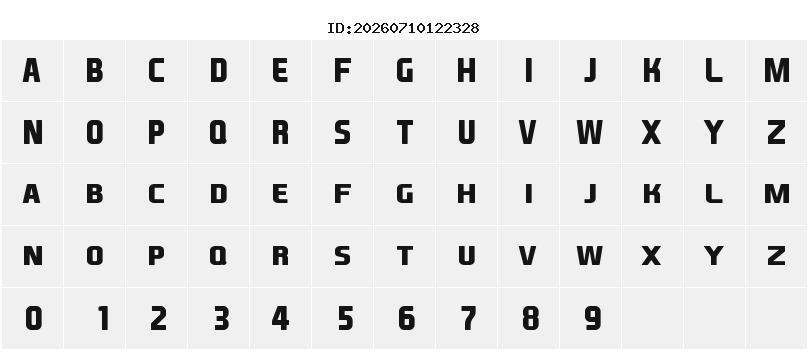
• Font Name: EA Sports Covers SC
• Font Style: Gras
• Font ID: EA Sports Covers SC Bold
• Full Font Name: EA Sports Covers SC Bold
• Version: Version 1.30 June 8, 2013
• PostScript Name: EASportsCoversSC-Bold
• Character Count: 239
• Designer: koeiekat
• Description: Clean-up of EASPORTS
About EA Sports Covers SC.ttf
EA Sports Covers SC.ttf is a modern, elegant sans-serif font designed for ultimate readability and visual harmony. Perfect for branding, headlines, web design, and print materials.